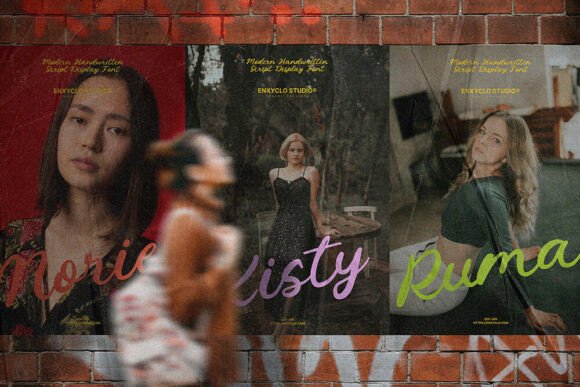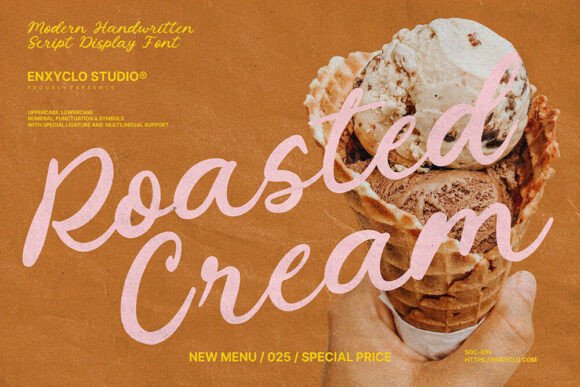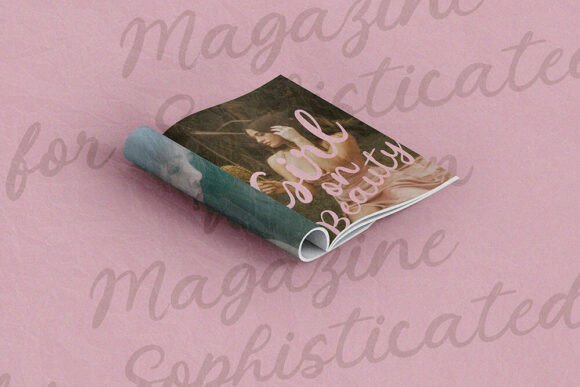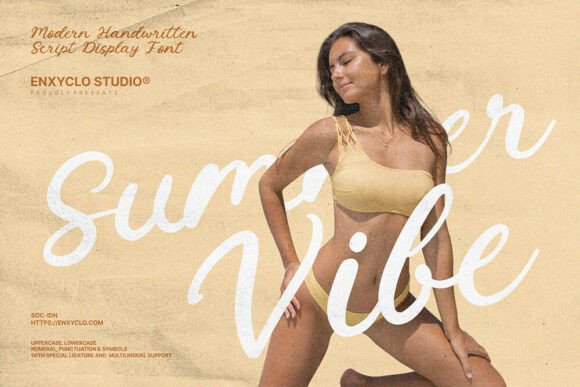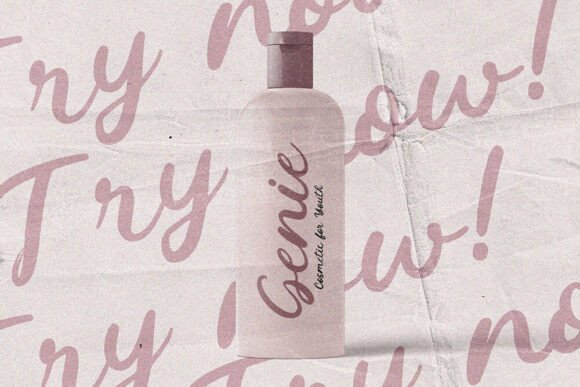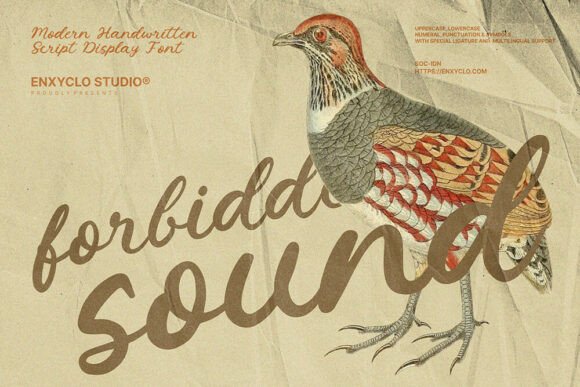
Introduction to Quisty Moqine Font
Remember the moment when you stumbled upon that perfect font, the one that instantly elevated your creative project from good to great? For many designers, this moment is a game-changer, and it’s exactly what you can expect from the Quisty Moqine Font.
This meticulously crafted brush script retro display typeface is a timeless gem that will inject your work with flair and sophistication. Its versatility makes it an unbeatable choice for a wide range of applications, from headlines and billboards to magazines, websites, posters, and branding efforts.
Key Features of Quisty Moqine Font
- Unique and creative design for various creative projects, making it a valuable design resource.
- High-quality font with a transparent background, perfect for backgrounds or overlays in your designs.
- Designed to be versatile and adaptable, making it an excellent choice for various design applications.
Honest Review: Quisty Moqine Font
I recently had the chance to play with the Quisty Moqine Font, and I must say it’s a great addition to any designer’s toolkit. This high-quality font is perfect for creative projects where you need a unique, eye-catching look.
- ✨ Highly customizable: With a wide range of styles and weights, you can tailor the Quisty Moqine Font to fit your specific design needs.
- ✨ Transparent background: This feature makes it super easy to use the Quisty Moqine Font in conjunction with other design elements.
- ⚠️ Limited support: While the Quisty Moqine Font works well in most design applications, I did encounter some compatibility issues with older software.
- ⚠️ Not ideal for body text: Due to its unique style, the Quisty Moqine Font is best suited for headlines and titles.
Overall, I’m really impressed with the Quisty Moqine Font. It’s a fantastic design resource that’s sure to elevate any creative project. Just be aware of its limitations and use it accordingly.
Tips for Getting the Most Out of Quisty Moqine Font
Experiment with different font sizes, colors, and styles to create visually appealing designs. Use the font in combination with other design resources to add depth and creativity to your project.
Quisty Moqine Font is ideal for various creative projects, including graphic design, digital art, and even web design. You can use it to create eye-catching logos, typography-based graphics, or even design elements with a transparent background.